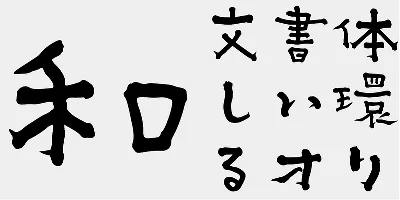
AB Fudeshichi Font
AB Fudeshichi Font is a dynamic Japanese-style brush script font that radiates artistic energy and traditional elegance. With bold, sweeping strokes and an expressive, hand-painted feel, this typeface is perfect for cultural event posters, restaurant branding, calligraphy-inspired packaging, and designs that seek to honor traditional Japanese brushwork with a modern edge.
The name “Fudeshichi” evokes the imagery of brush (fude) strokes combined with a distinctive personality. Each character in AB Fudeshichi feels handcrafted, offering a visual rhythm that’s both powerful and graceful. It’s especially effective in display use, where its textured forms can bring emotion, heritage, and visual drama to your typography.